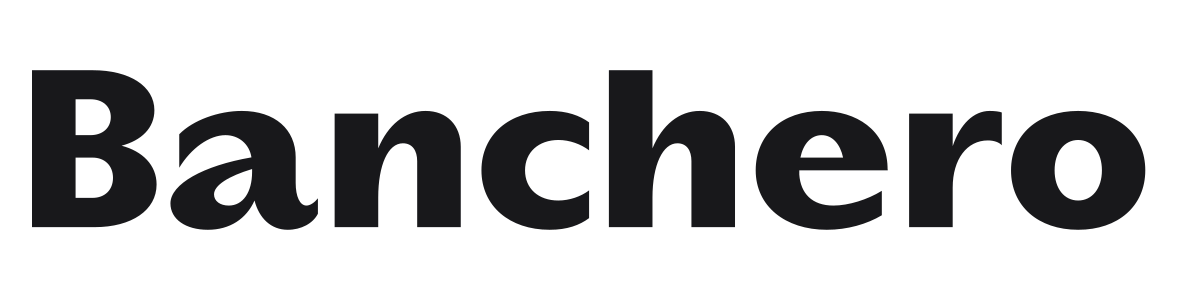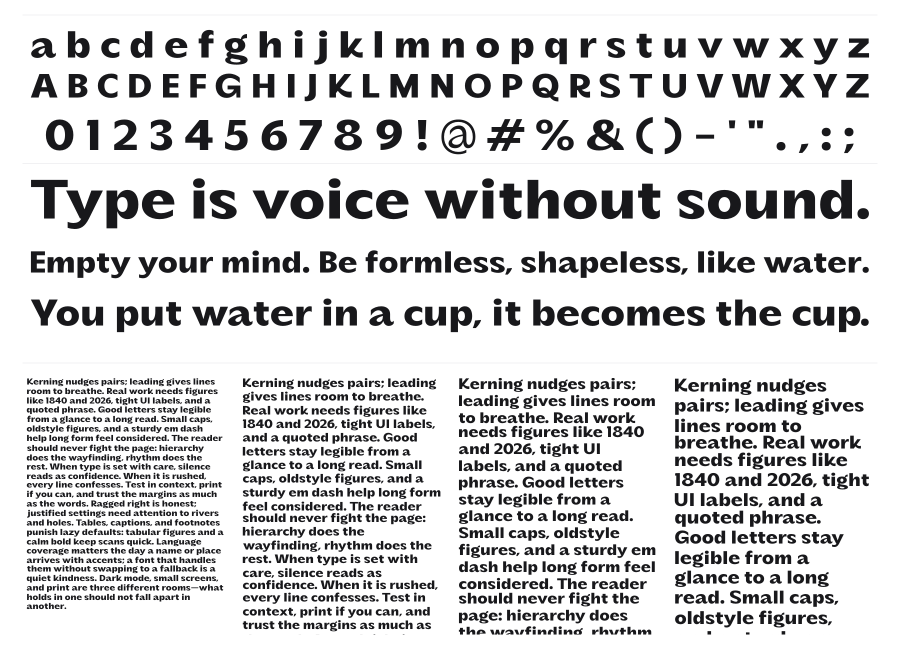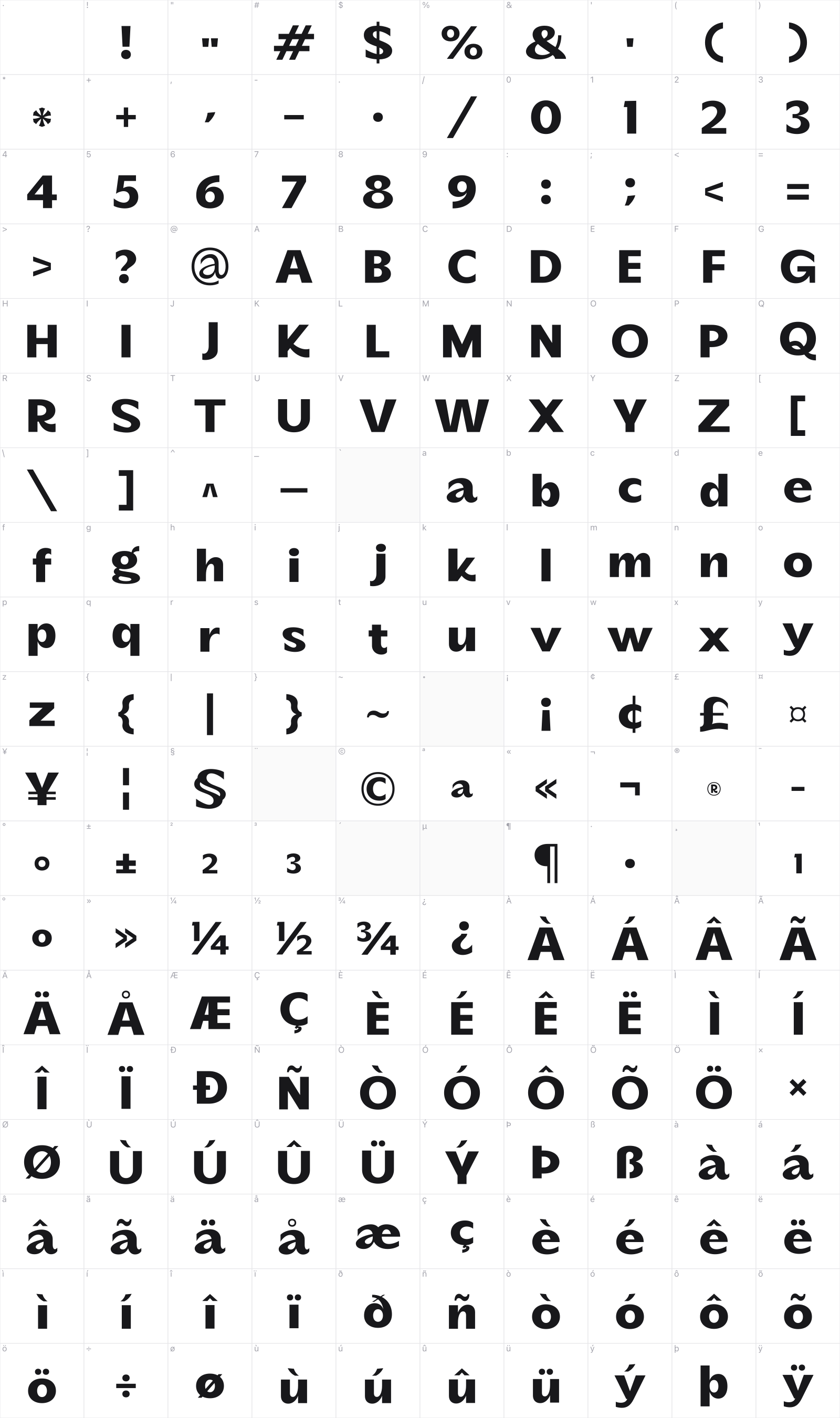
Banchero
Banchero is a bold humanist sans-serif with a heavy weight and generously proportioned characters. The smooth terminals and open apertures give it a warm, approachable quality that many ultra-bold grotesques lack. It carries authority without coldness, making it a solid choice for headlines, branding, and packaging.